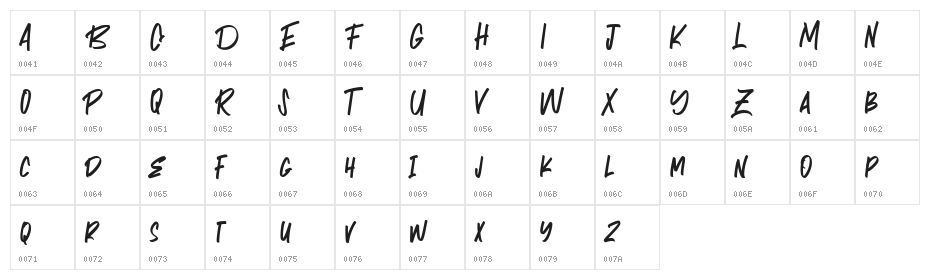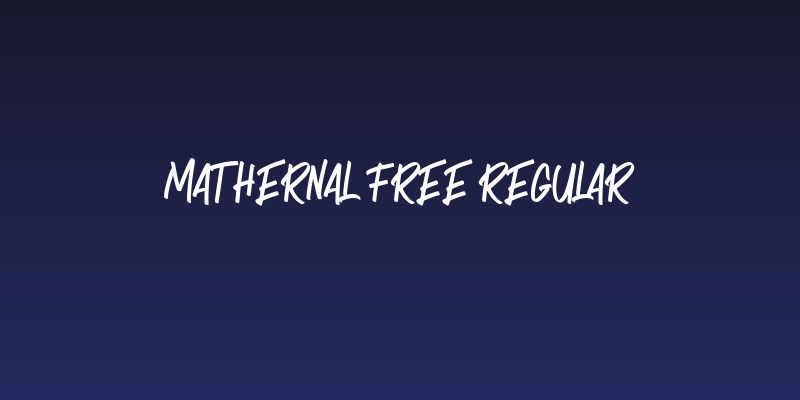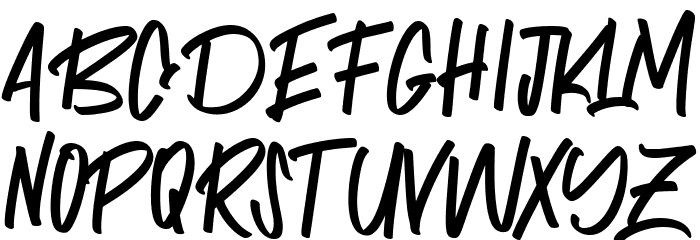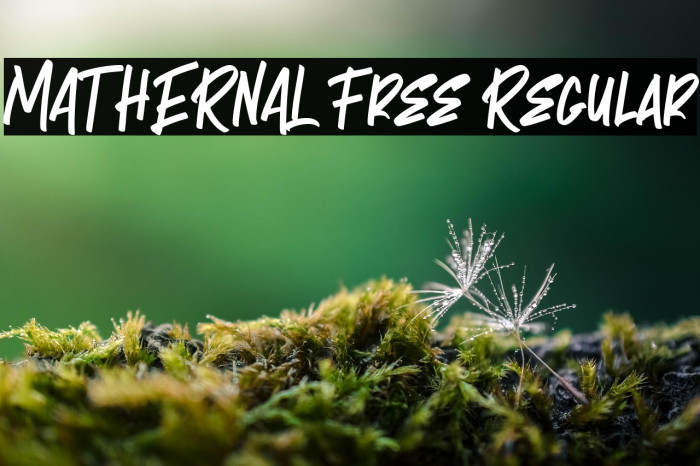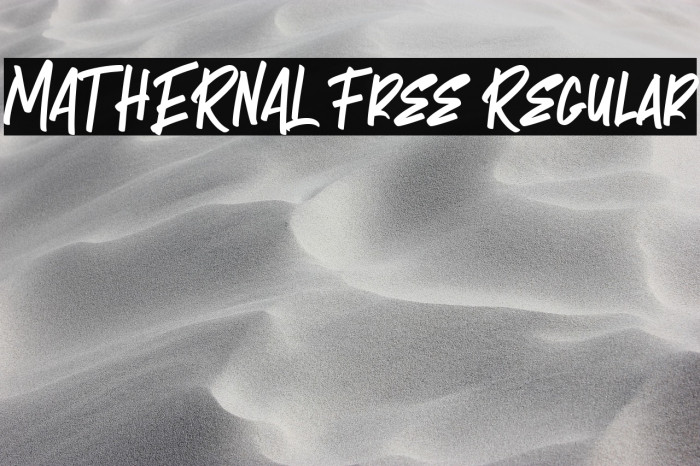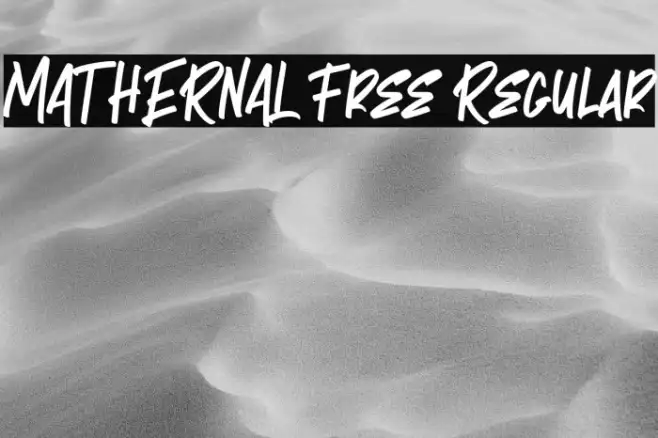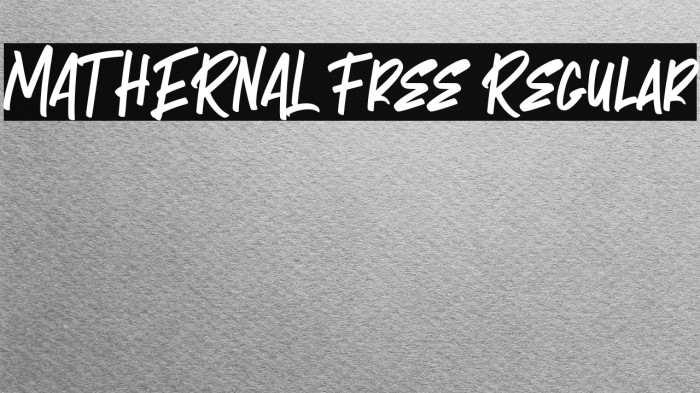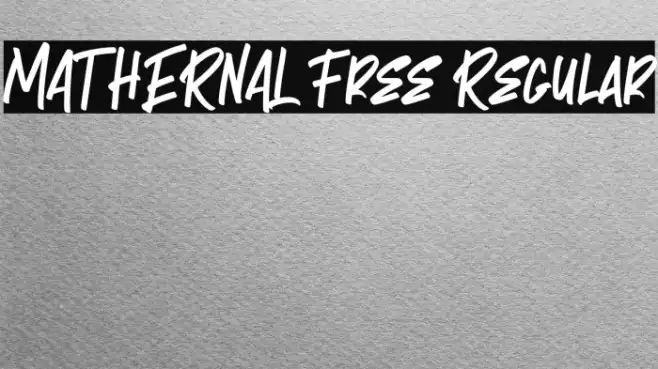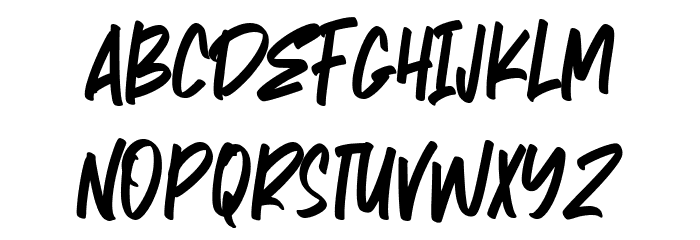
MATHERNAL Free Regular Font
MATHERNAL Free Regular Description
This font features a bold and energetic script style, characterized by its dynamic and fluid strokes. The letters are interconnected with a natural flow, giving it a handwritten appearance. The uppercase and lowercase letters maintain a consistent style, with a slight slant that adds to its casual and informal look. The strokes are thick and confident, providing a strong visual impact. This font is versatile, suitable for projects that require a personal touch or a lively, expressive feel.
| Proposed Projects | Ideal for branding, social media graphics, invitations, and posters where a personal and lively touch is desired. |